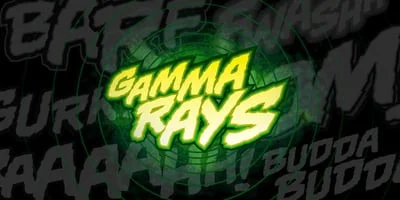
Gamma Rays BB Font
Gamma Rays BB Font is ideal for science fiction branding, radioactive warning signage, nuclear research presentations, futuristic gaming graphics, atomic energy marketing, laboratory safety materials, and high-energy physics communications.
What makes Gamma Rays BB Font exciting is its radioactive energy and atomic power intensity, featuring electrifying letterforms that capture the essence of nuclear science while delivering high-energy visual impact and scientific authenticity.
The Gamma Rays BB Font family includes Light, Regular, Medium, Bold, and Heavy weights, plus radioactive variants and atomic alternates that enhance the font's energetic character and scientific possibilities.
Gamma Rays BB Font embodies the powerful energy of atomic science and the electrifying force of radioactive phenomena through high-energy typography design. This dynamic typeface captures the invisible power of gamma radiation and the cutting-edge excitement of nuclear physics, creating an energetic visual language that speaks to scientists and technology enthusiasts who value atomic research, nuclear innovation, and the electrifying appeal of high-energy physics. The font's radioactive character and atomic appearance make it perfect for research institutions, science museums, and technology companies that want to communicate power, innovation, and the electrifying appeal of nuclear science advancement.
Research institutions and science organizations consistently select Gamma Rays BB Font for projects that require authentic scientific credibility and high-energy visual impact. The typeface's atomic construction and energetic personality make it exceptionally effective for nuclear laboratories, physics departments, and science museums where atomic research and radioactive safety are paramount. Each character has been designed with scientific precision to ensure maximum energy across all research applications and laboratory environments.
The scientific advantages of Gamma Rays BB Font extend beyond its atomic appeal to include practical functionality for diverse research applications. The font maintains excellent readability in laboratory settings while delivering the distinctive character that creates memorable scientific experiences and connects with audiences seeking authentic nuclear research. Its comprehensive character set includes scientific symbols and atomic elements that make it particularly suitable for research documentation and scientific communication.
Nuclear laboratories, physics departments, and science museums frequently choose Gamma Rays BB Font because of its ability to instantly convey scientific authenticity and atomic sophistication. The typeface's radioactive aesthetic helps establish credibility in competitive research markets while appealing to scientists who value nuclear innovation, atomic research, and the electrifying experiences that come from authentic high-energy physics and gamma radiation studies.